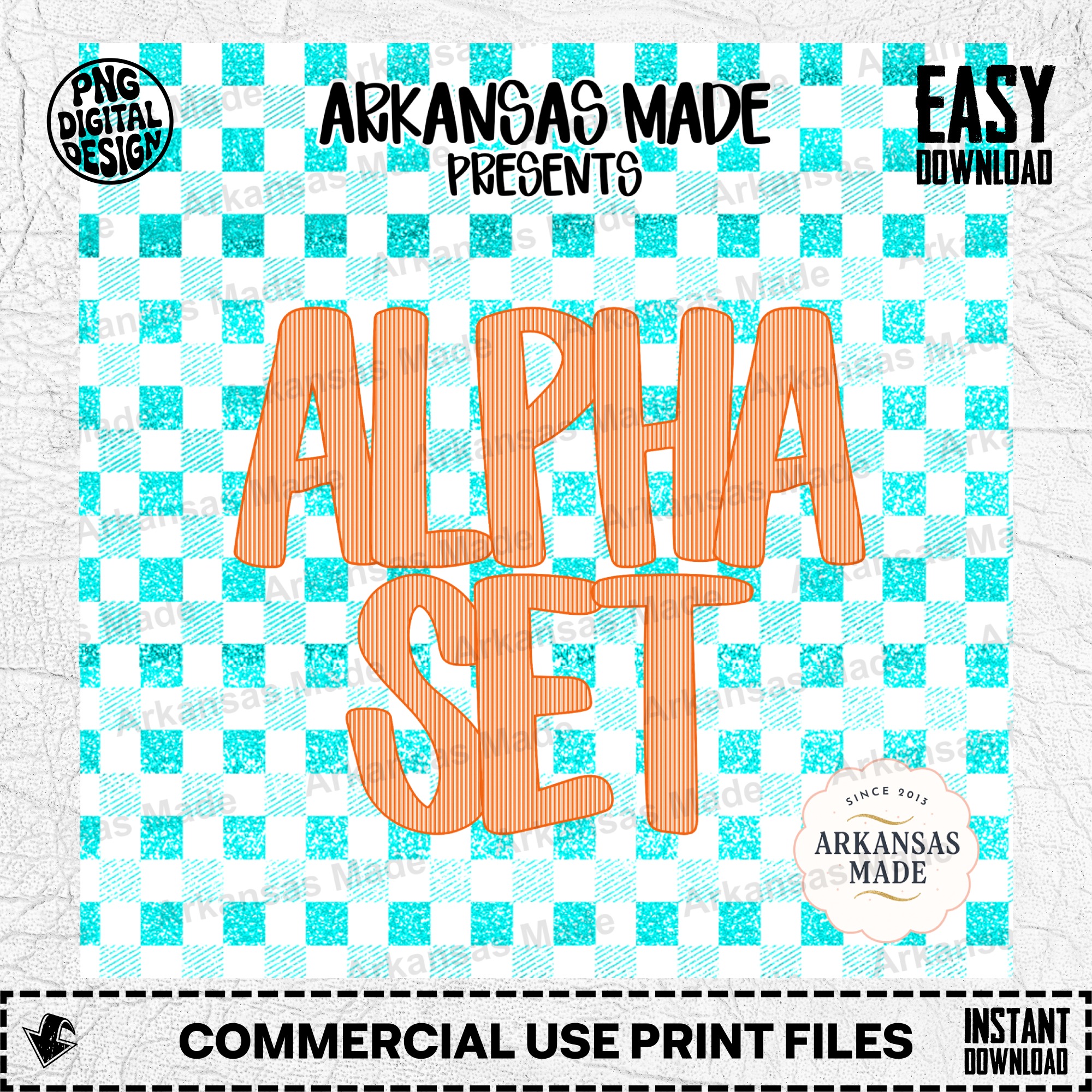
Elevate your designs with this vibrant Orange Striped Alpha Set PNG, perfect for sublimation projects and custom text creations. Get instant digital download access! This versatile digital alphabet features a bold, playful striped texture, ideal for crafters, small business owners, and DIY enthusiasts. Create unique t-shirt designs, personalized gifts, or eye-catching branding with these high-quality graphic assets, offering endless creative possibilities.